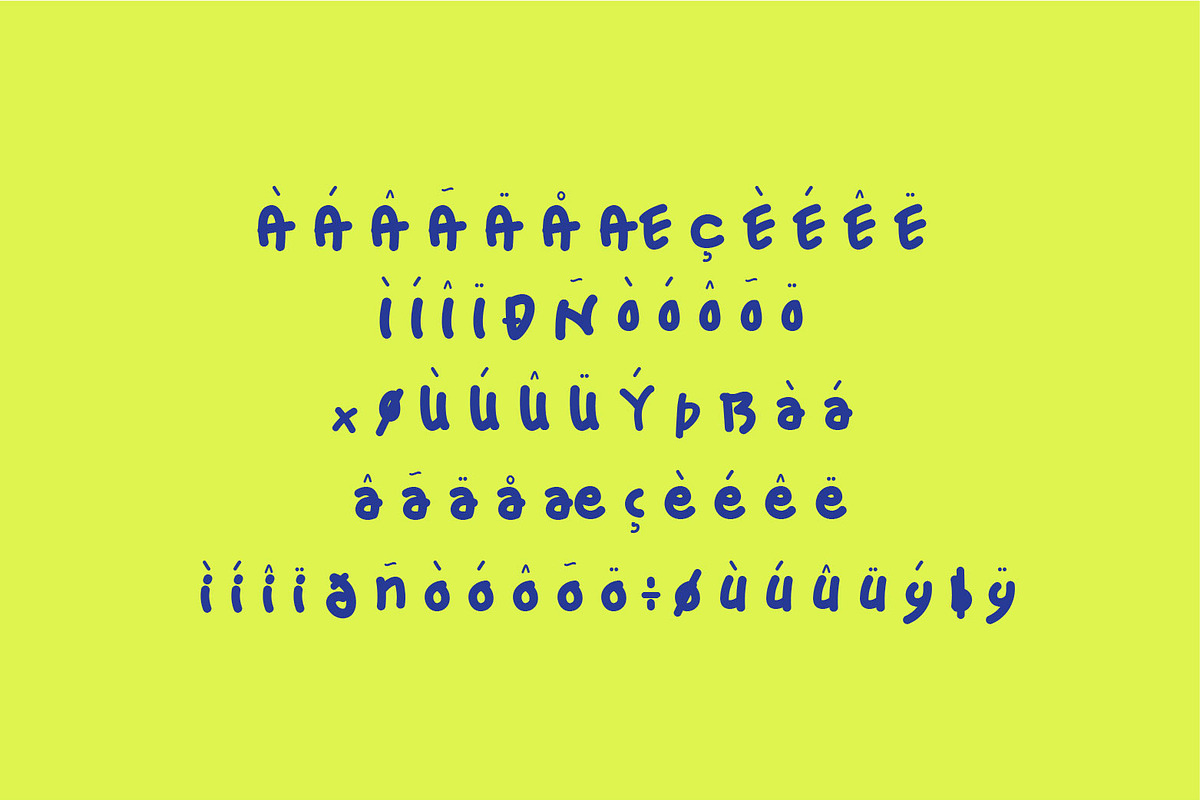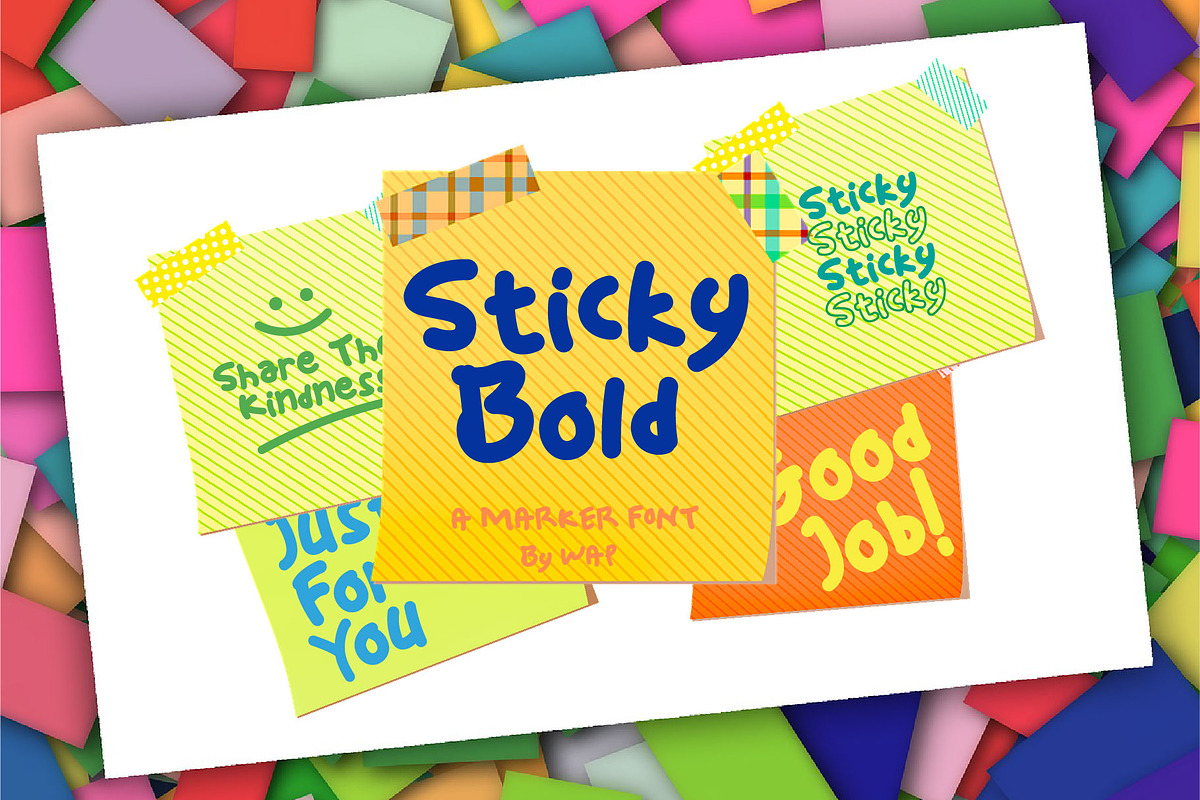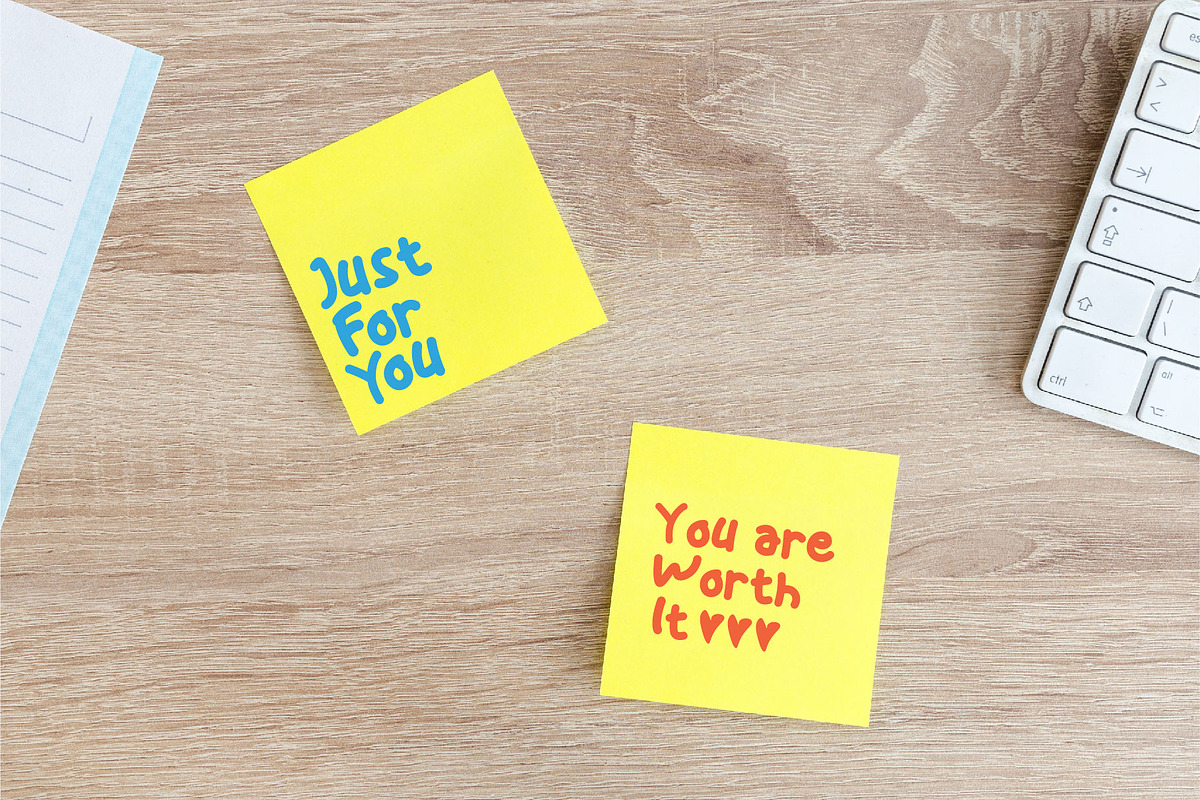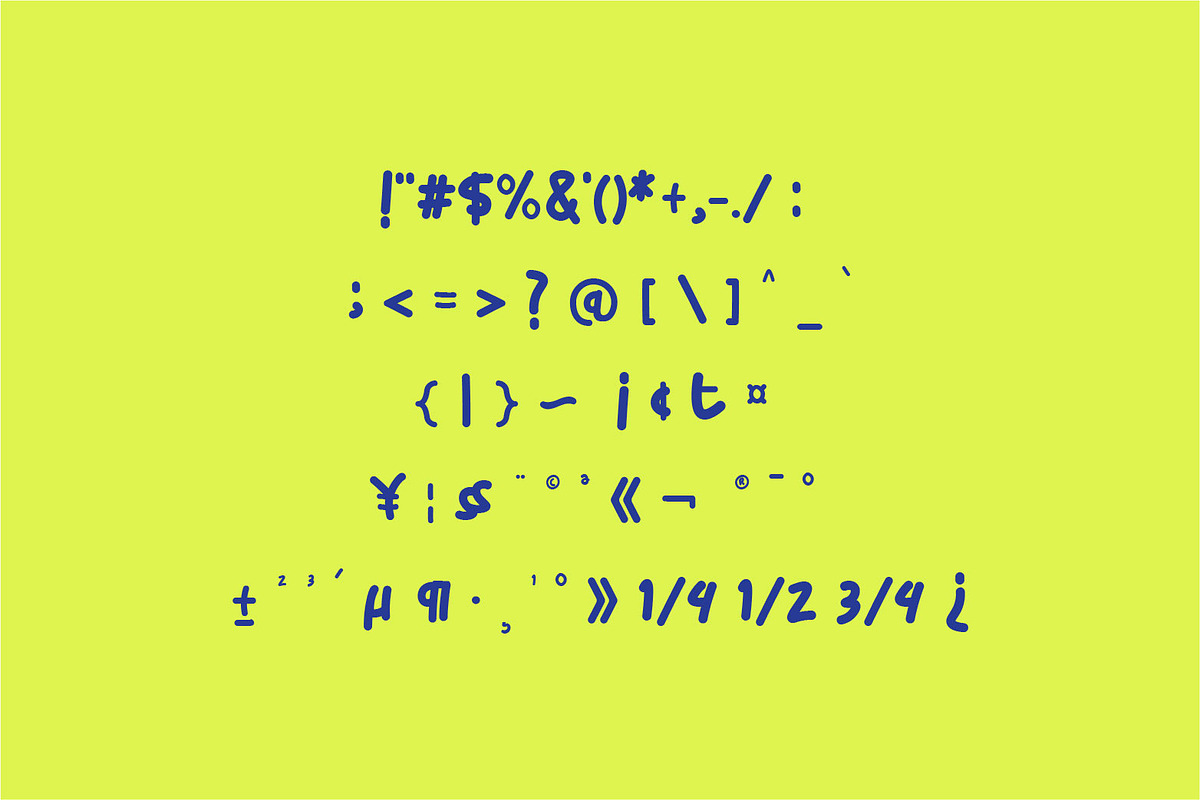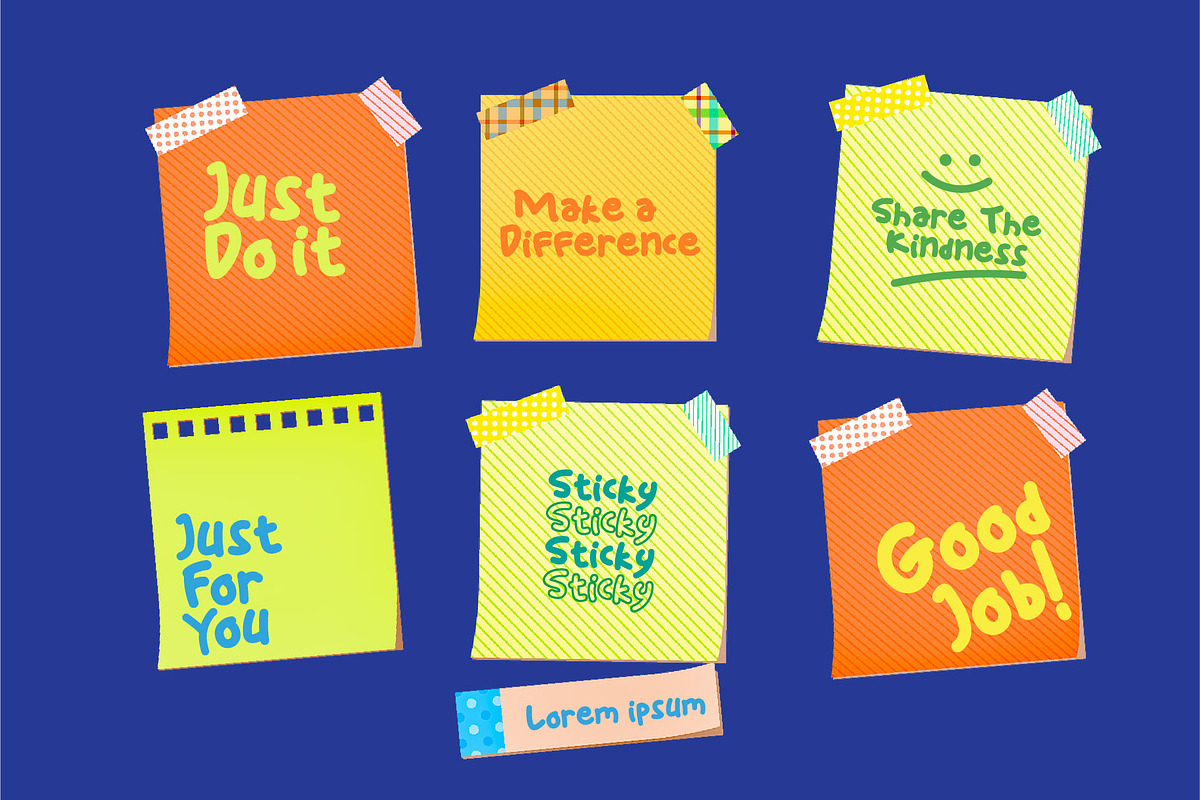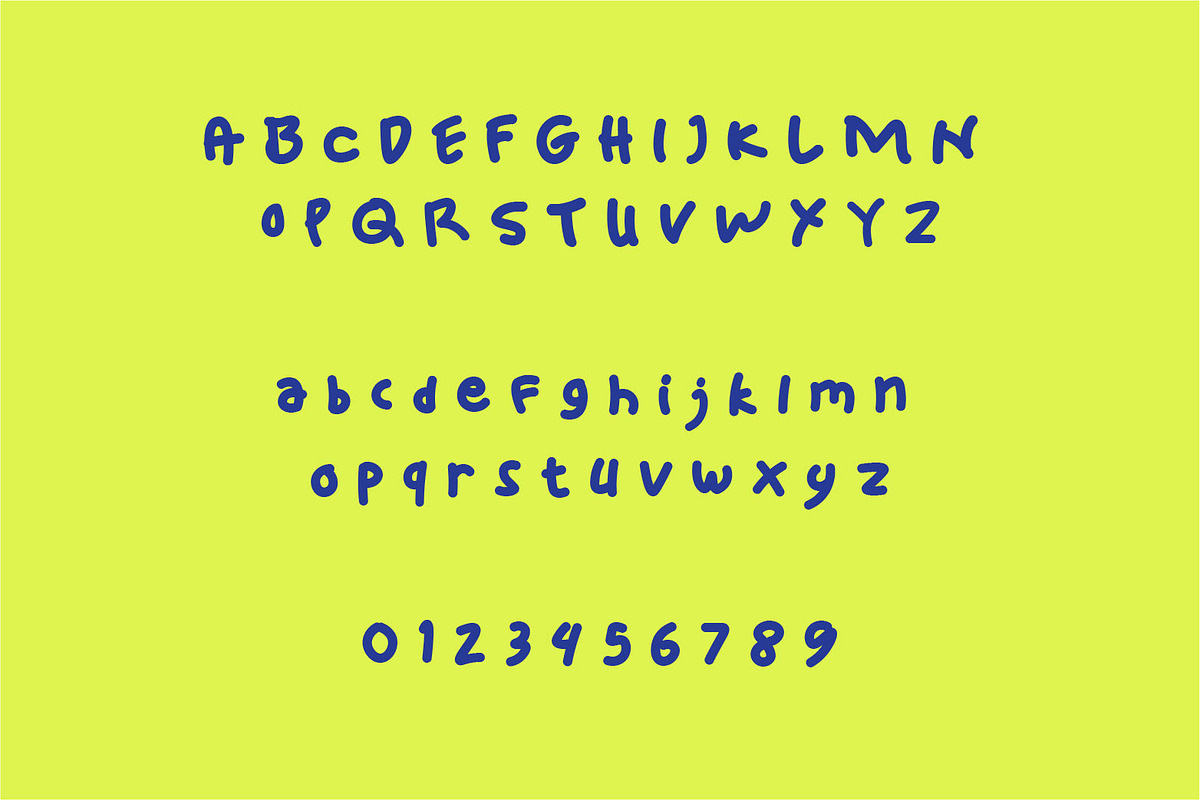
Sticky Bold
Sticky Bold is a great display font. Its casual charm makes it appear wonderfully down-to-earth, readable and, ultimately, incredibly versatile. Sticky Bold will look outstanding in any context, whether it’s being used on busy backgrounds or as a standalone headline!